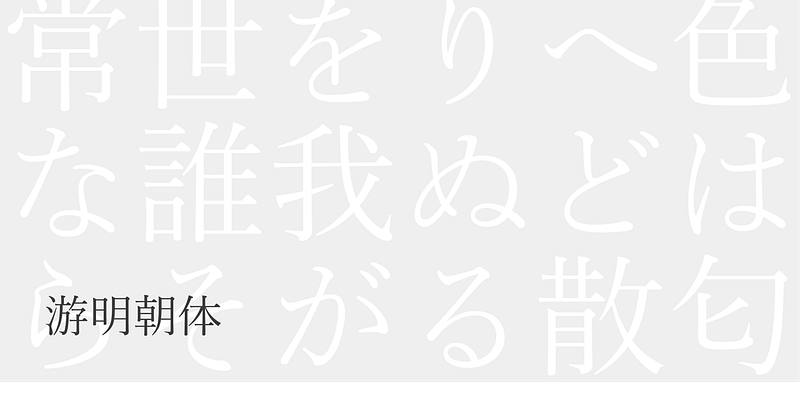
Yu Gothic Pr6N
Yu Gothic is a standard sans serif type family designed to be highly readable for setting a large volume of text. Its character size is designed relatively small and has comfortable letter space between each letter that individual character stands out and is able to maintain legibility in typesetting.
Yu Mincho Pr6N R
Yu-Mincho was developed around the key concept of “Creating a typeface for composing novels.” Hardback and paperback novels are the target use. Yu-Mincho combines modern style kanji (ideographic) characters with consistent visual sizes and standard traditional kana characters, which is rarely seen in other typefaces.